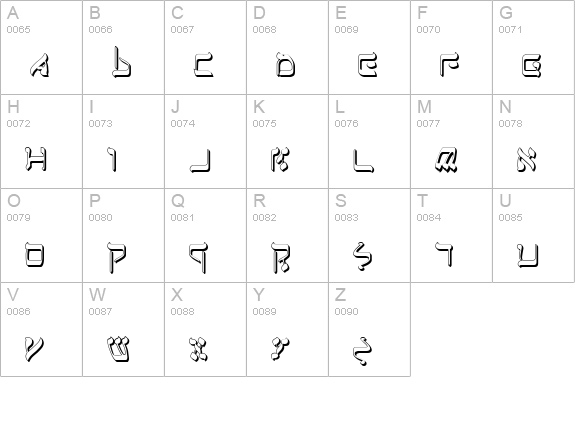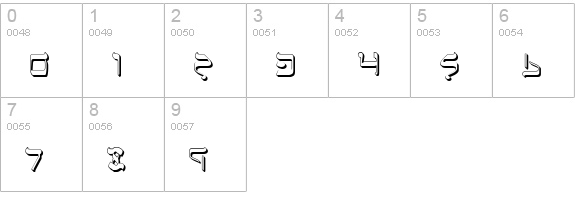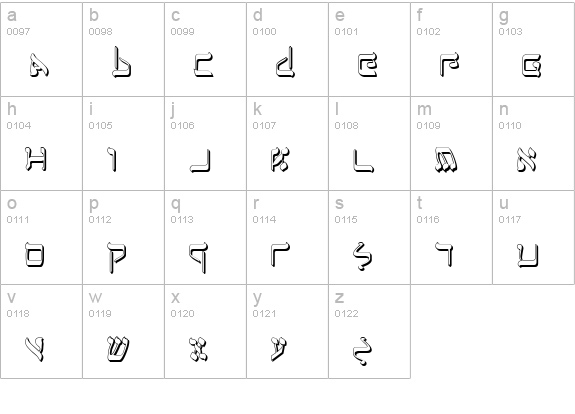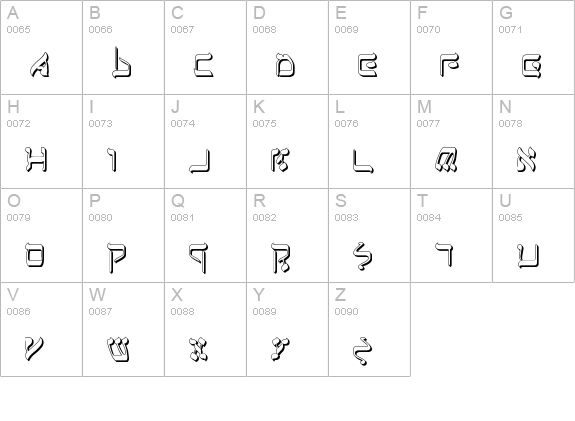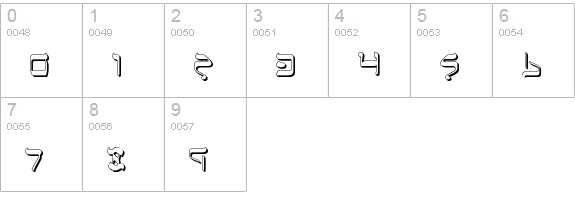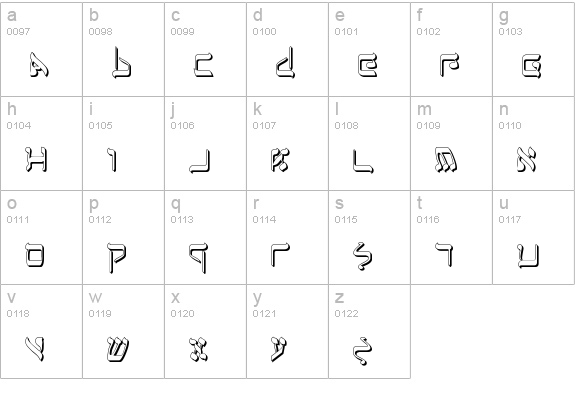
Jerusalem Shadow Font Details
Introducing Jerusalem Shadow font, a beautifully crafted typeface that exudes elegance and sophistication. With its intricate shadow effect, this font adds a touch of drama and intrigue to any design project. Whether you're creating invitations, posters, or branding materials, Jerusalem Shadow font will elevate your work to new heights. What's even better is that Jerusalem Shadow font is completely free to download. You can get your hands on this stunning typeface at FontsMarket.com and start using it in your projects right away. Don't miss out on the opportunity to add a touch of magic to your designs with Jerusalem Shadow font. Download it now and let your creativity shine!